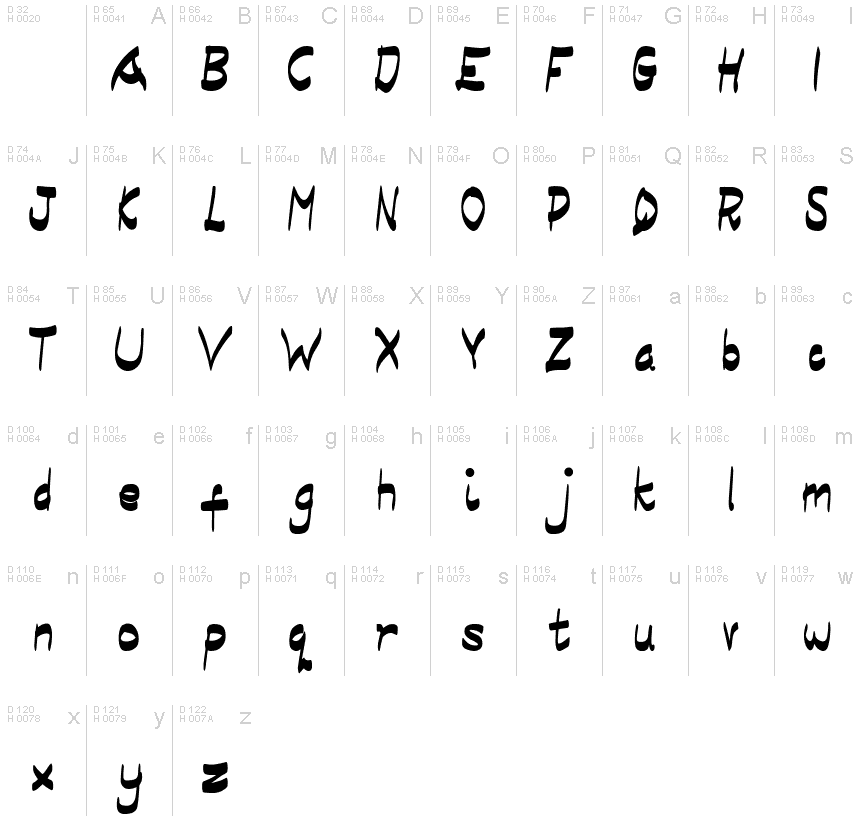
Aisyah
Aisyah is a beautiful script font. The playful bold characters make it the perfect font for creating stunning designs. Get inspired by its authentic feel and use it to create gorgeous wedding invitations, Food, quotes, beautiful stationary art, eye-catching social media posts, and many more.